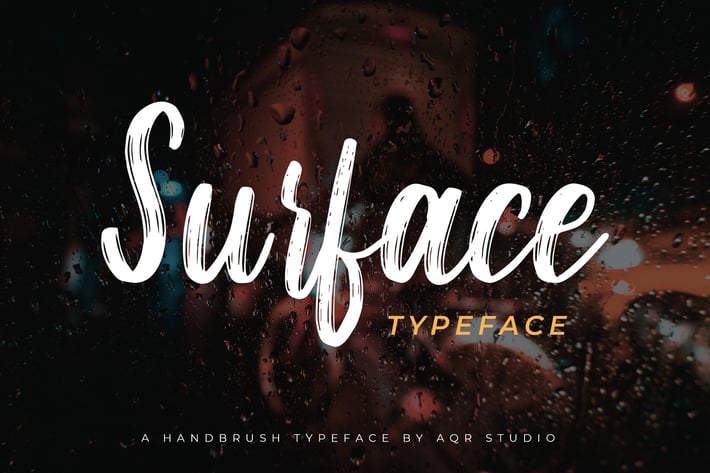
Surface Typeface
Fresh!!! Surface Typeface suitable for any design : Branding, Logotype, Writting , T-shirts, Mug design, Wedding Design and any design what you want.
chaniago features with :
- Basic Glyphs, Numerals, Symbol and punctuation
- Swash, Stylistic Sets
- Standard Ligatures
chaniago features with :
- Basic Glyphs, Numerals, Symbol and punctuation
- Swash, Stylistic Sets
- Standard Ligatures